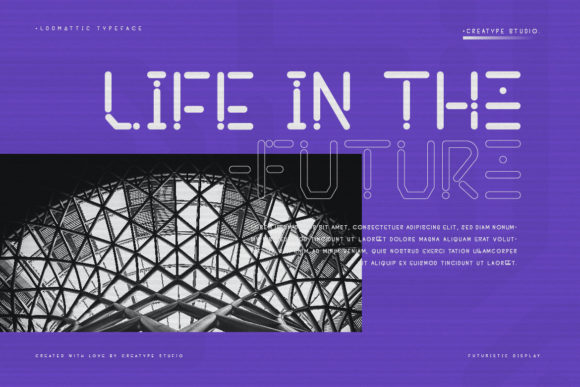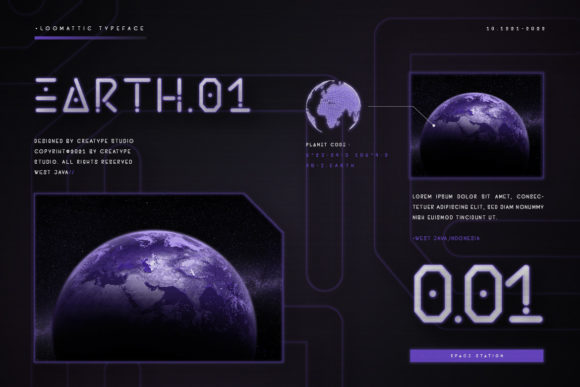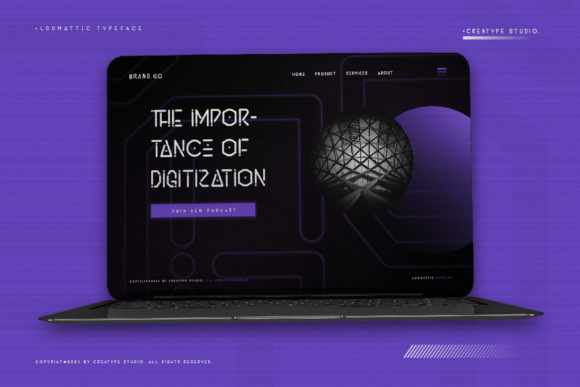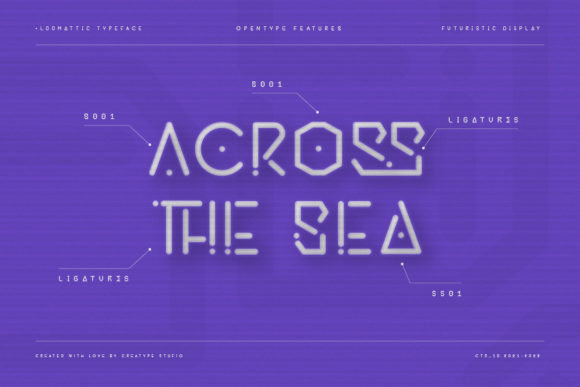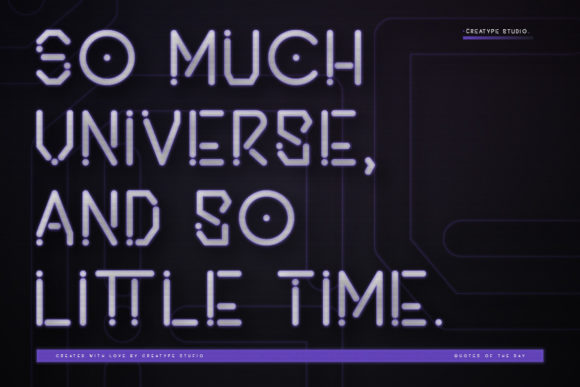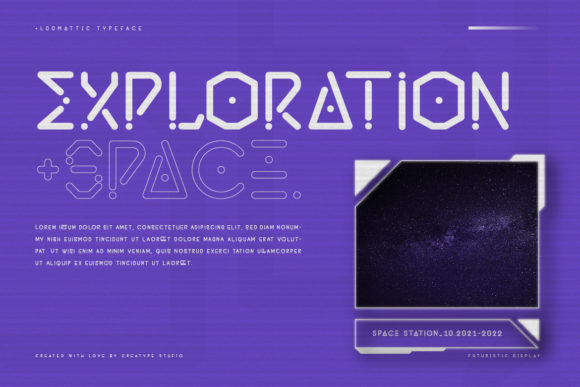
Introduction to Loomattic Font
Have you ever stared at a blank page, wondering how to bring your creative vision to life? For designers and creatives, this moment is all too familiar. But what if you had the perfect tool to unlock your imagination and take your project to the next level? Enter the Loomattic Font, a futuristic display font that’s about to revolutionize the way you design.
With its sleek, minimalist aesthetic and PUA encoded glyphs, the Loomattic Font is the ultimate design resource for any creative project. Whether you’re working on a sci-fi novel, a tech startup’s branding, or a futuristic art piece, this high-quality font is the perfect choice. And the best part? It’s available for free download, allowing you to bring your ideas to life without breaking the bank.
Key Features of Loomattic Font
- Unique and Creative Design: The Loomattic Font is designed to add a touch of creativity to any project, making it perfect for artistic and innovative designs.
- Transparent Background: This feature allows the font to seamlessly blend with any background, making it ideal for creative projects that require a clean and minimalist look.
- High Resolution: Designed with high resolution in mind, the Loomattic Font is suitable for use in both low and high-resolution designs, ensuring it looks great on any device or medium.
- Perfect for Creative Projects: The Loomattic Font is an excellent addition to any design project, from graphic design to digital art, and can be used for a wide range of creative applications.
Honest Review: Loomattic Font
I recently came across the Loomattic Font and I have to say, it’s been a game-changer for my creative projects. As a designer, I’m always on the lookout for high-quality design resources that can elevate my work.
What works well with the Loomattic Font is its versatility. It’s perfect for a variety of creative projects, from digital designs to print materials. I’ve used it for logos, business cards, and even website headers, and it always looks great.
✨ One of the standout features of the Loomattic Font is its transparent background option. This makes it super easy to use in a variety of design contexts, and it’s a huge time-saver.
However, ⚠️ one thing to note is that the font can be a bit finicky when used in certain formatting situations. I’ve had to tweak the settings a few times to get it to behave as expected.
Overall, I’m really impressed with the Loomattic Font. It’s a high-quality design resource that’s perfect for anyone looking to elevate their creative projects. With its transparent background option and free download availability, it’s a no-brainer for designers.
Use the Loomattic Font on a transparent background to give your design a clean and modern look. You can also use the font in combination with other design resources, such as graphics and images, to create a unique and eye-catching design.
The Loomattic Font is a versatile design resource that can be used in a variety of creative projects, such as logos, business cards, and social media graphics. It’s also a great choice for designers who want to create a high-quality and professional-looking design with a unique and creative touch.